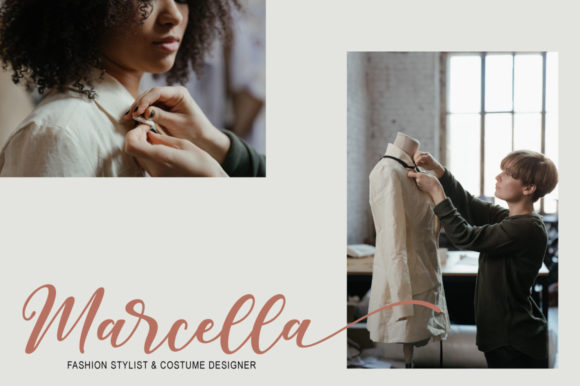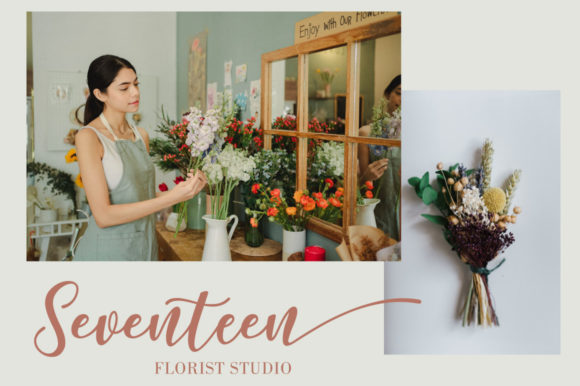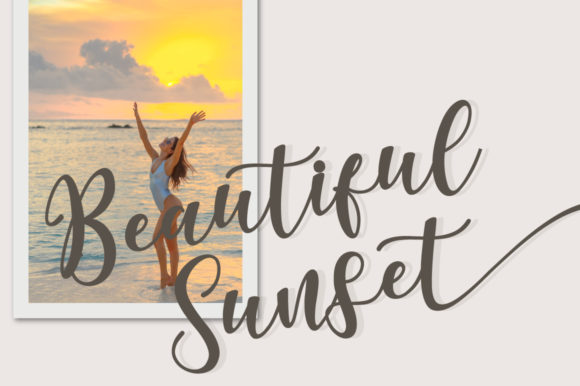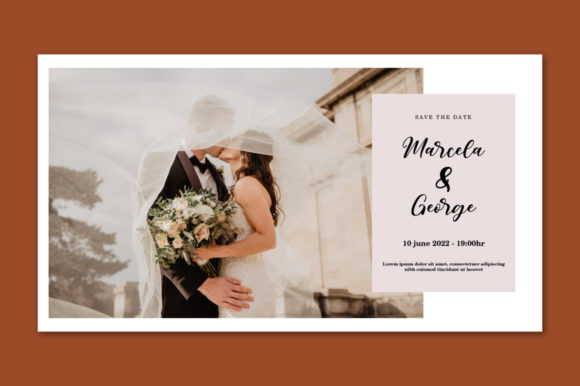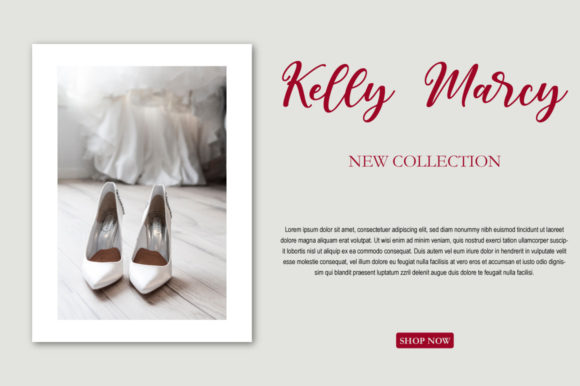
Mariola Font – Free Download
Introduction to Mariola Font
Mariola is a lovely and delicate script font that exudes elegance and class.
This font is specially crafted for those who need a beautiful and refreshing look to their designs Mariola is PUA encoded which means you can access all of the glyphs and swashes with ease.
Key Features of Mariola Font